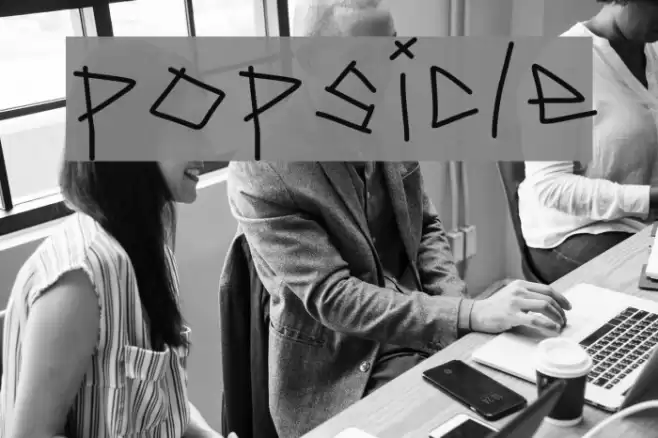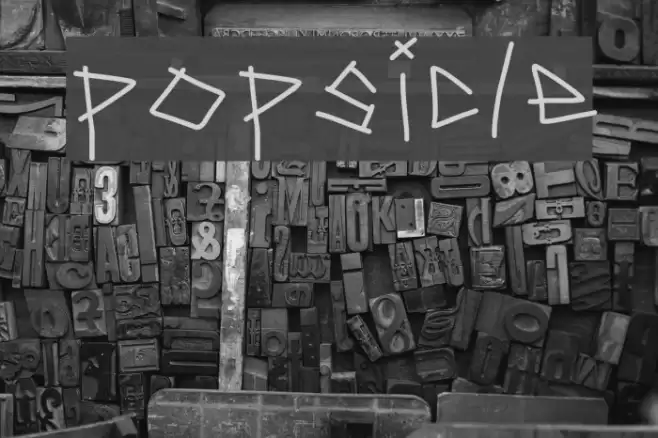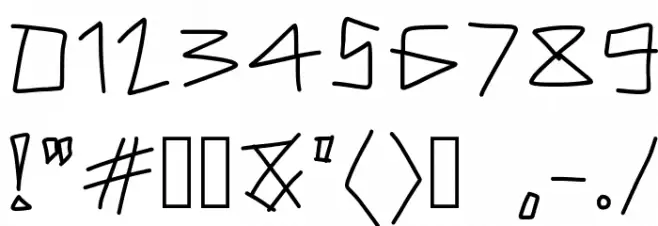
popsicle Font
popsicle Description
This font features a playful and quirky design with irregular, hand-drawn strokes that give it a casual and whimsical feel. The characters are slightly tilted and uneven, adding to the informal and fun aesthetic. The uppercase and lowercase letters maintain a consistent style, with unique variations that make each character stand out. The numerals and special characters follow the same playful theme, making this font ideal for creative and informal projects. The overall appearance is reminiscent of doodles or sketches, perfect for adding a touch of personality and charm.
A playful, hand-drawn font with quirky, irregular strokes from Uncategorized fonts.
- Proposed Projects: Ideal for children's books, playful branding, casual invitations, and creative posters.